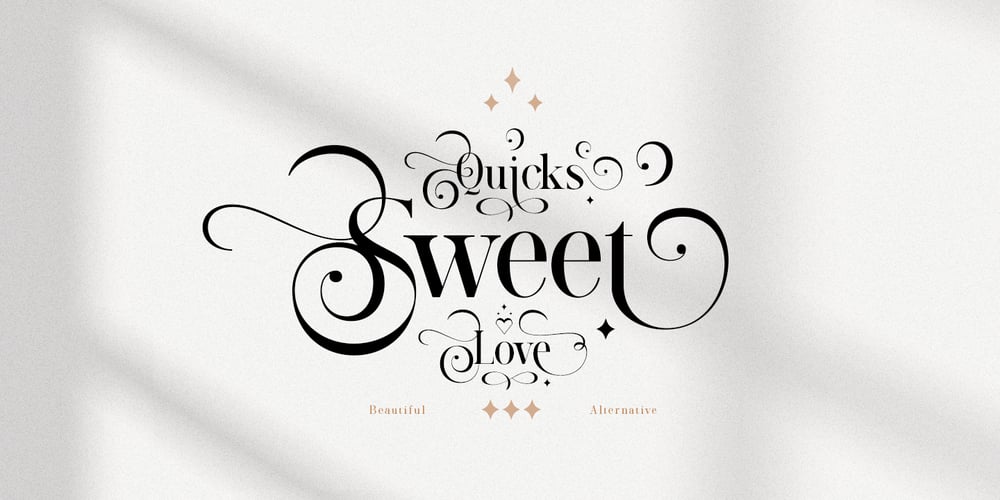
Quick Sweet Love Font Family was designed by Ambia and published by Areatype. Quick Sweet Love contains 1 styles and family package options. Quicks sweet love is a very versatile font. perfect for magazine images, to wedding invitations, to branding, poster design, and more.Adding beautiful ligatures and alternatives to make your typography truly unique.Files included: Numerals & Punctuation Stylistic Alternates & Ligatures PUA Encoded CharactersThanks so much for looking, I really hope you enjoy it and please don’t hesitate to drop me a message if you have any issues or queries ๐